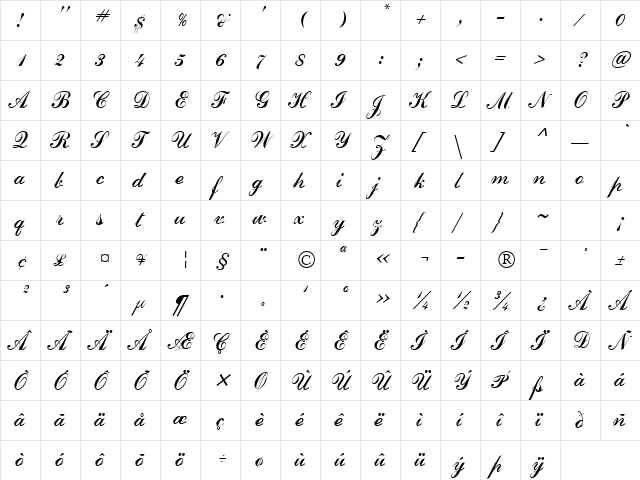
CommScriptTT Italic
Design Context for CommScriptTT Typeface
CommScriptTT flows with the natural rhythm of handwritten lettering, making it ideal for designs that call for warmth and personal expression.
Font Pairing: Combine CommScriptTT with a simple geometric sans for maximum contrast — the tension between flowing curves and clean structure is a classic typographic pairing.
Pro Tip: Pair CommScriptTT with a clean sans-serif for supporting text. The contrast between fluid script and geometric structure creates an elegant typographic hierarchy.